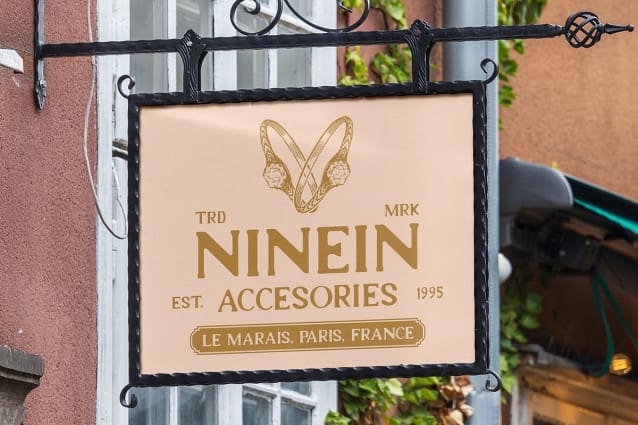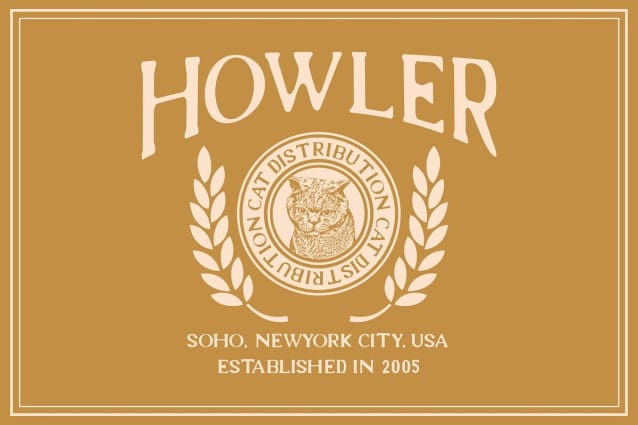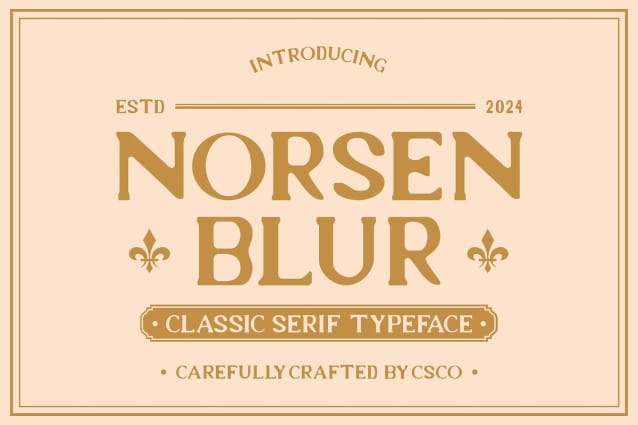
Norsen Blur Font
Norsen Blur Font is a serif font that embodies the beauty of classic typography with a subtle vintage influence. Its carefully crafted letterforms, inspired by traditional serif designs, radiate elegance and sophistication. This timeless quality makes Norsen Blur perfect for projects that aim to create a refined, classic aesthetic with a nod to the past.
Blur Effect for a Soft, Artistic Edge What sets Norsen Blur apart is its delicate blur effect, which adds an artistic, ethereal layer to the font. This soft, slightly out-of-focus detail transforms the standard serif form into something more dynamic and visually intriguing. The blur effect introduces a sense of fluidity, making the font feel less rigid and more expressive, adding depth and a touch of mystery to your designs.
A Nostalgic Yet Modern Visual Statement With its vintage roots and contemporary blur treatment, Norsen Blur makes a striking visual statement. It strikes the perfect balance between old-world charm and modern artistry, giving your designs a sense of history while keeping them fresh and relevant. This makes it ideal for branding, posters, and promotional materials that aim to evoke nostalgia with a modern twist.